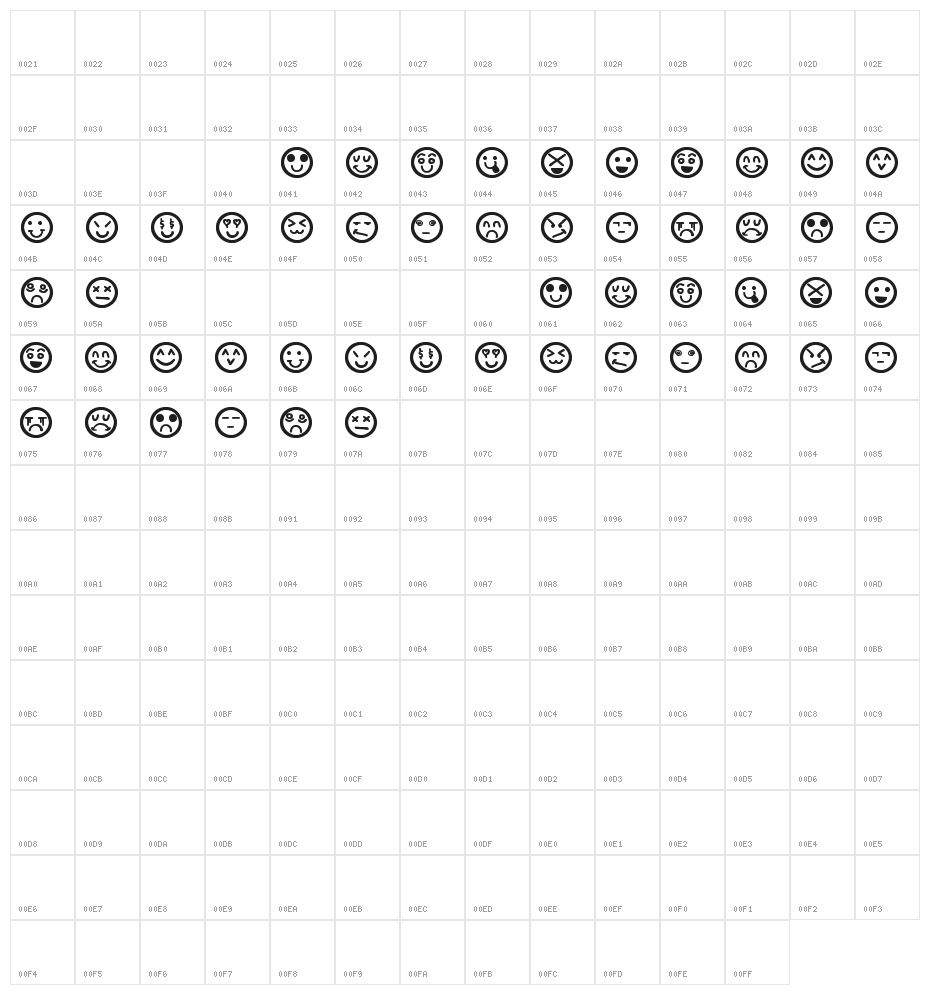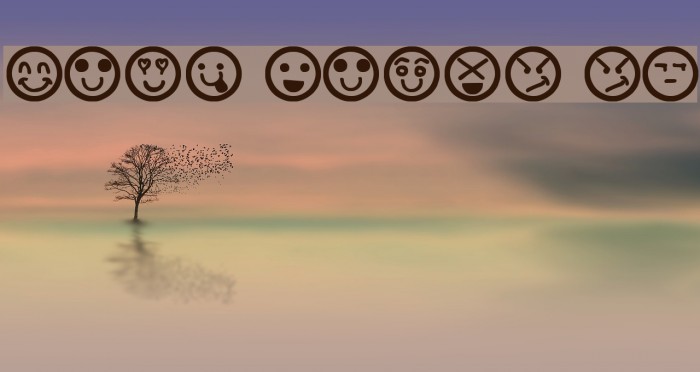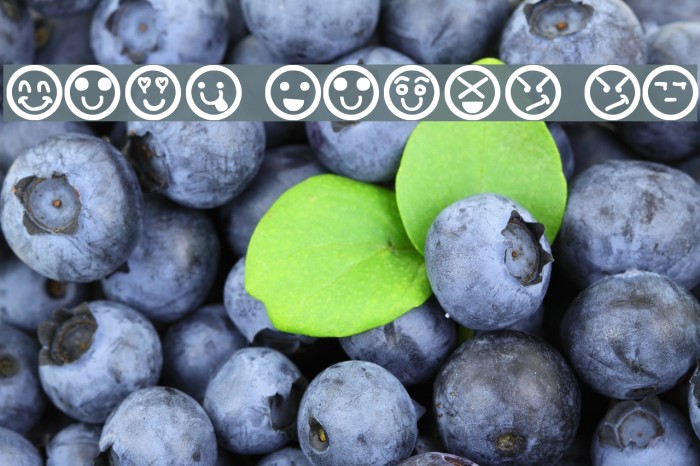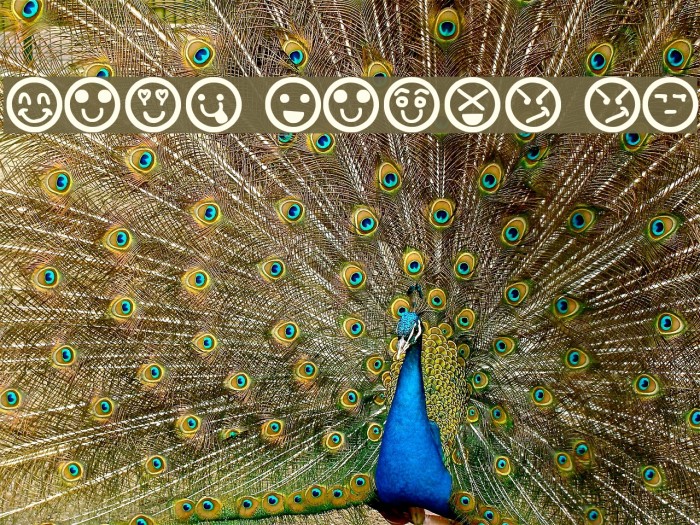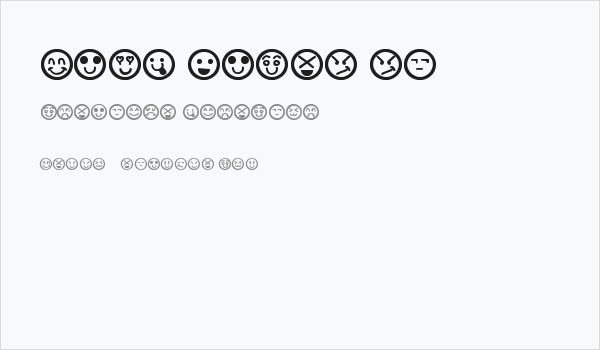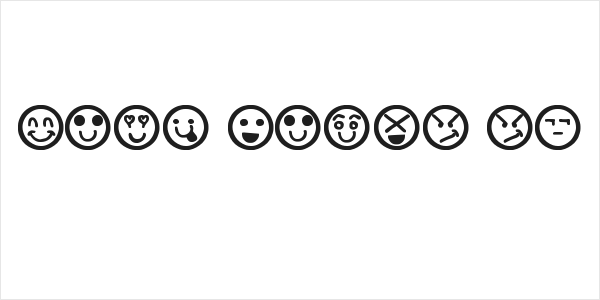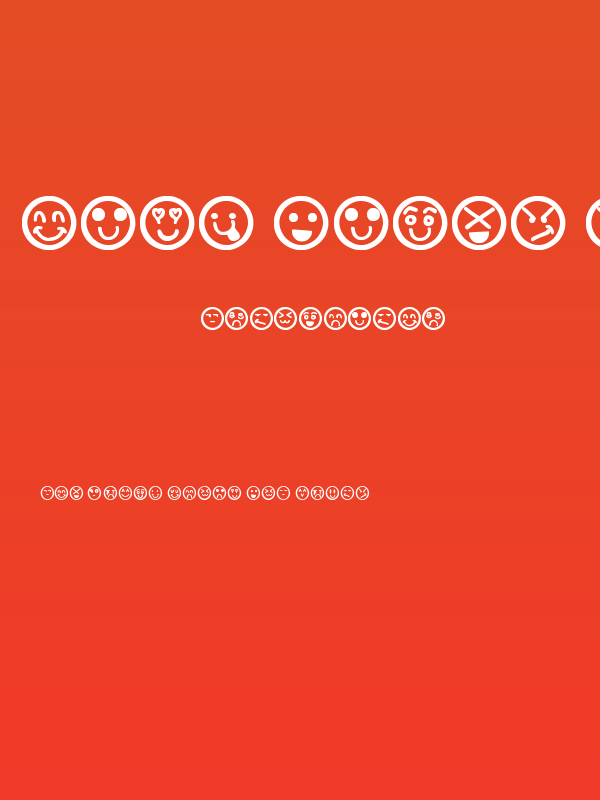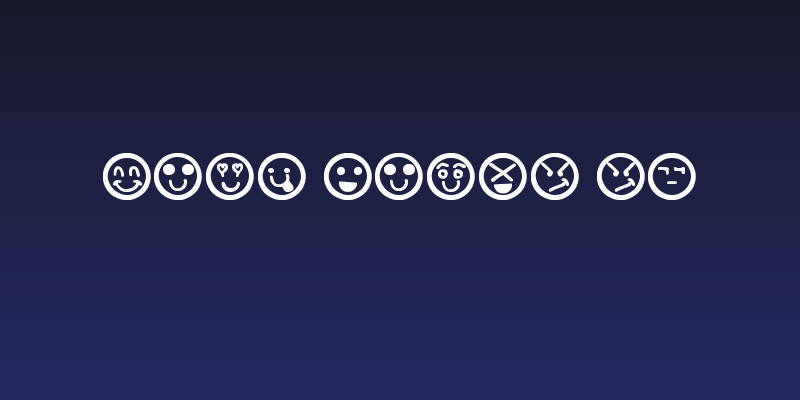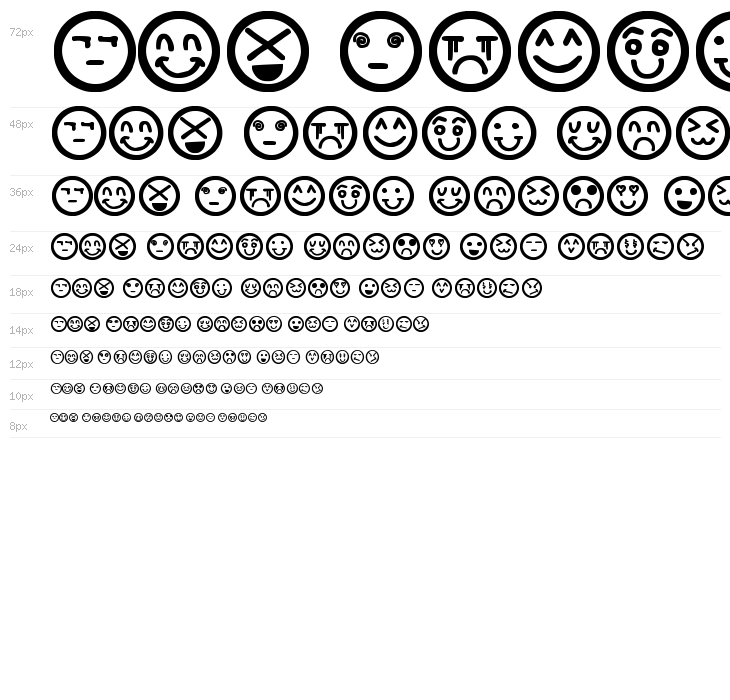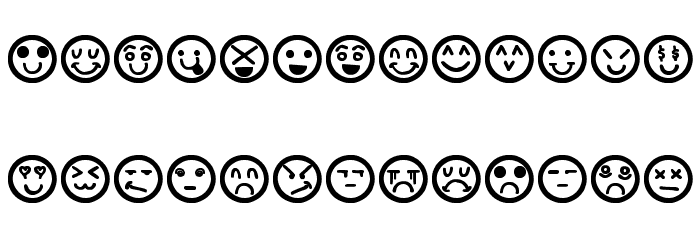
Hand Faces St Font
Hand Faces St Description
A playful, decorative font composed entirely of hand-drawn emoticon faces within bold circular outlines, each representing a different letter, number, or symbol. The style is consistent with thick strokes and rounded shapes, evoking a friendly and expressive tone.
| Overall Style | Playful, Decorative, Modern |
| Use Case | Logos, Headlines, Posters, Themed events, Informal communication |
| Proposed Projects | ChildrenΓ’β¬β’s books, party invitations, playful branding, educational materials, greeting cards, social media graphics. |